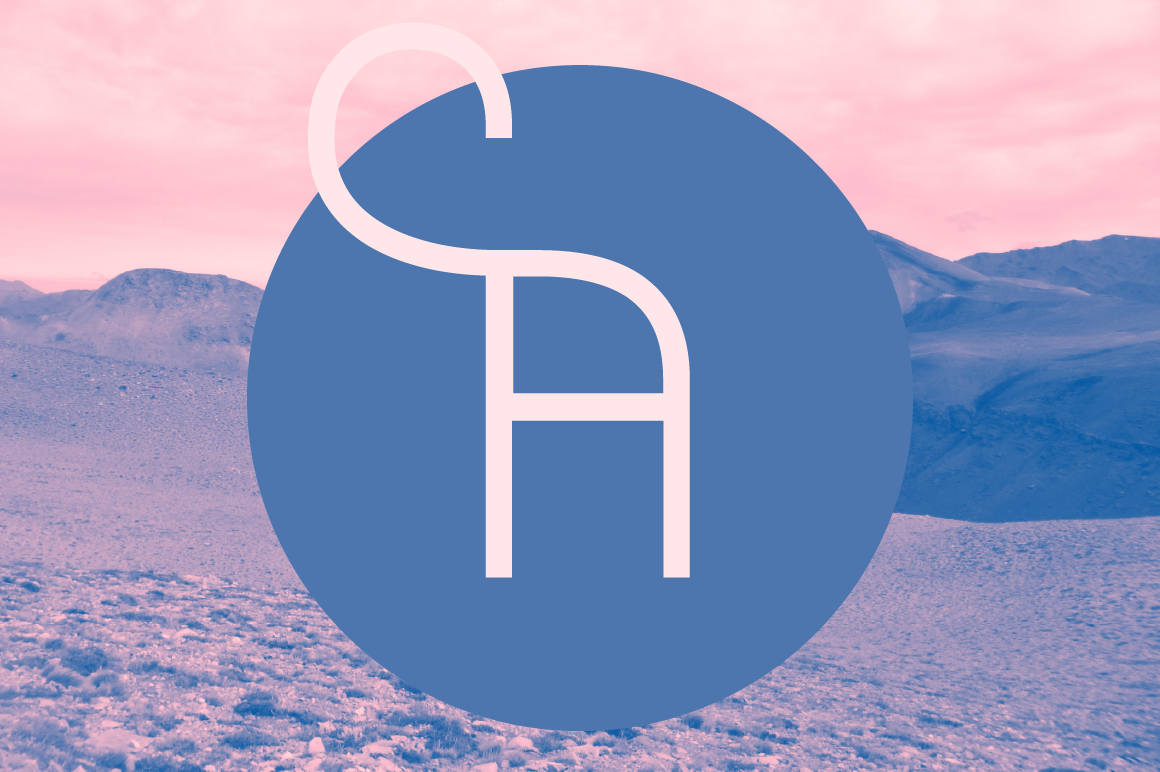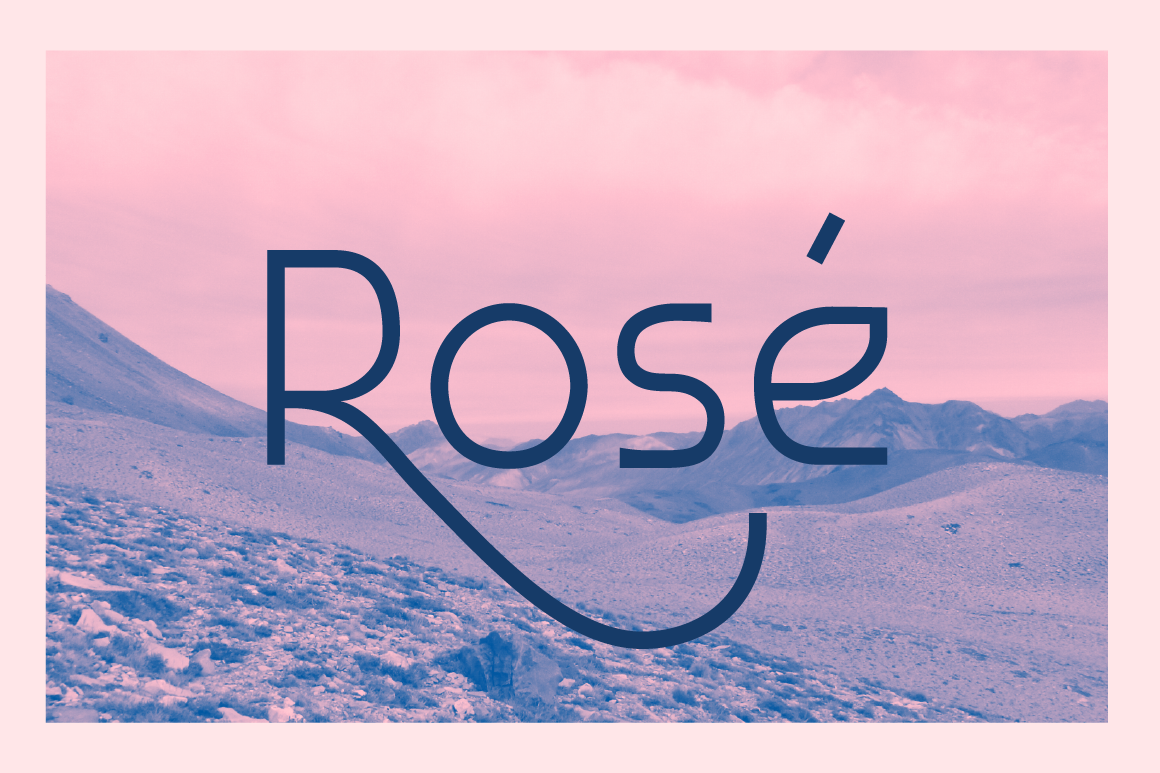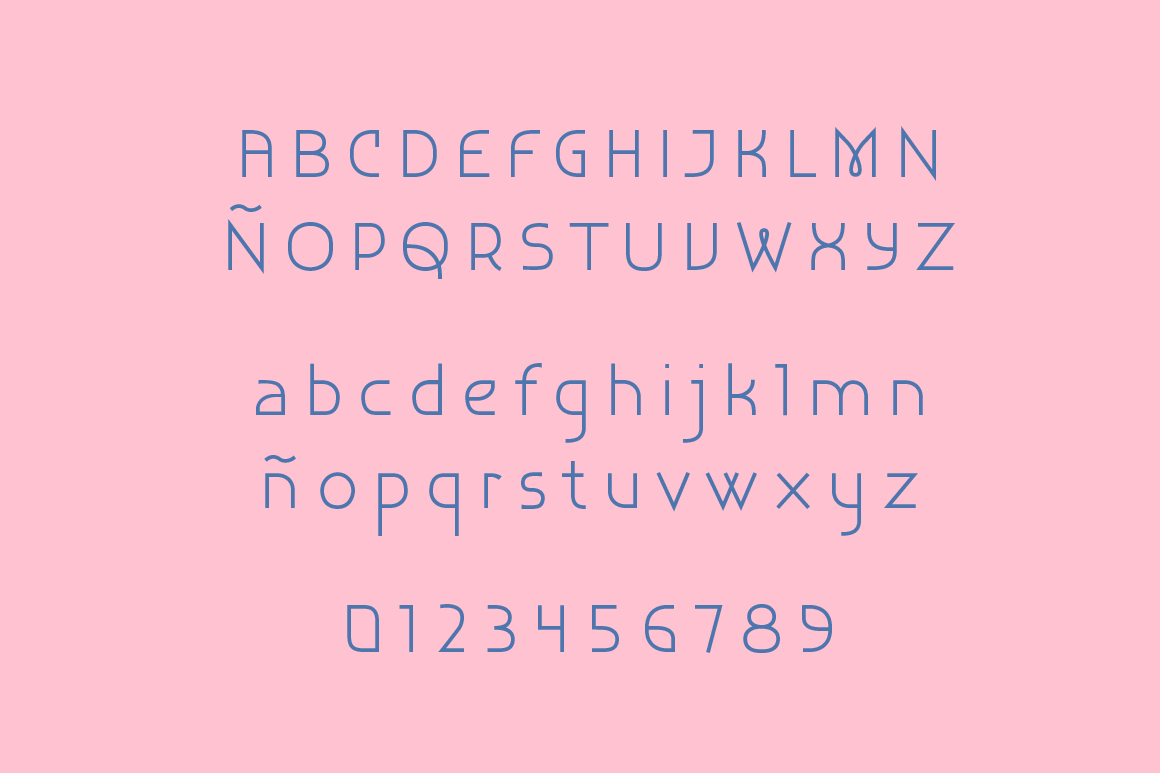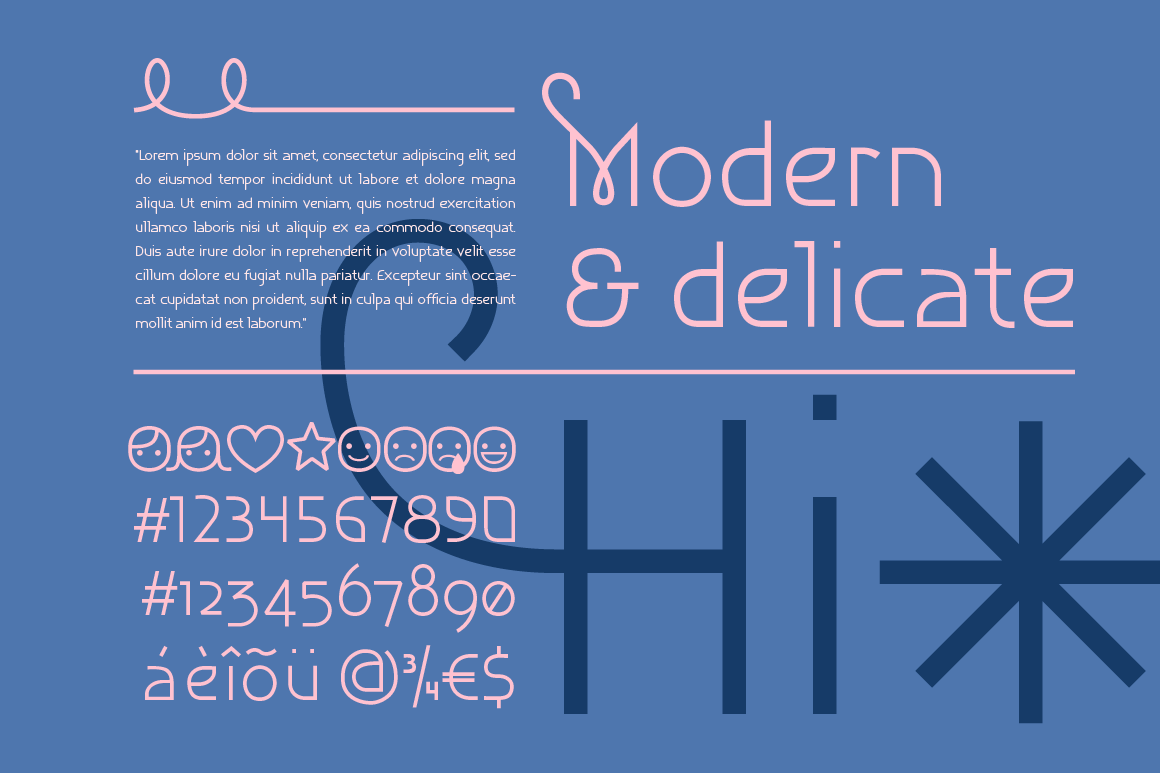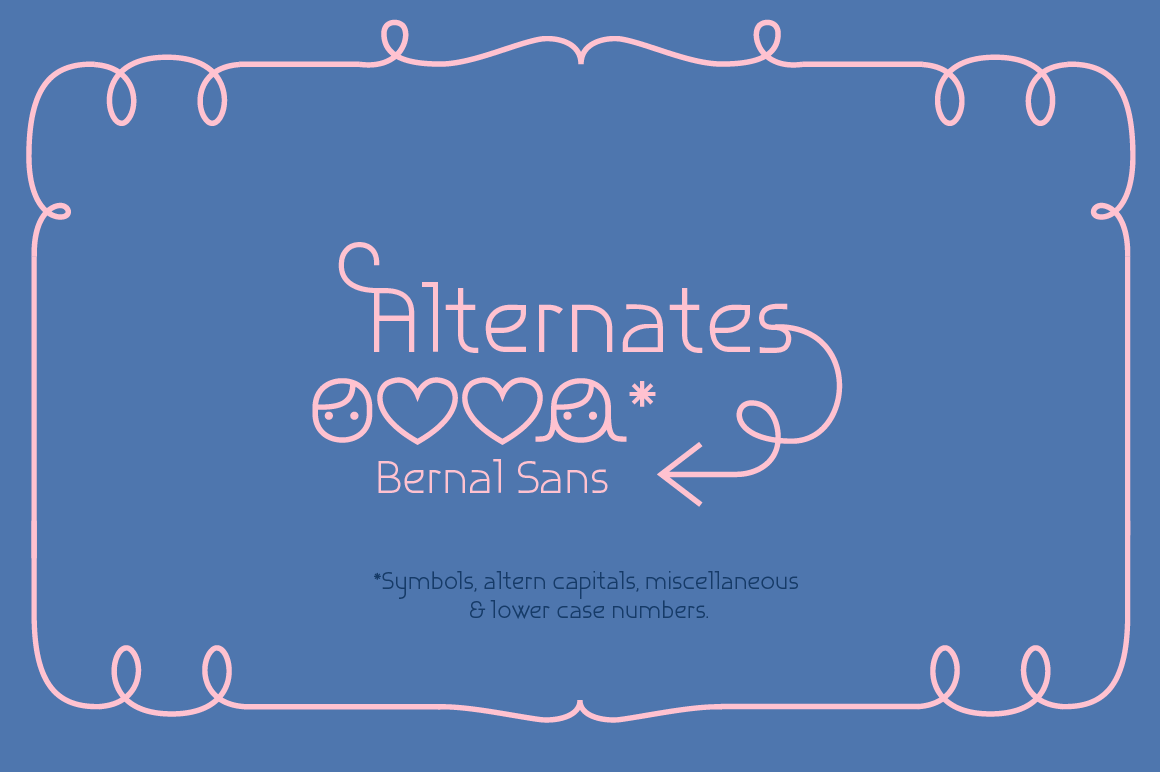
The Perfect Touch of Whimsy: Bernal Sans Font
There’s something magical about stumbling upon a font that perfectly captures the essence of your creative vision. For designers, it’s that elusive “aha” moment when all the pieces fall into place. Perhaps it’s the gentle curve of a letterform, or the way a font seems to whisper your message to the world. For us, that moment came when we discovered the Bernal Sans Font – a display modern sans-serif font that exudes a delicate and romantic touch.
With its clean and minimal design, Bernal Sans Font is the perfect addition to any project that needs a touch of charm. Whether you’re designing a wedding invitation, a boutique logo, or a travel brochure, this font is sure to add a dash of personality to your work. As a designer, you’ll appreciate the versatility and sophistication that Bernal Sans Font brings to the table – making it an invaluable tool in your creative arsenal.
Bernal Sans Font Key Features
- Unique Characteristics: Bernal Sans Font features a modern, sans-serif design with a distinctive rounded edge and a friendly, approachable feel, making it ideal for body text and display typography.
- Font Weight and Style: Bernal Sans Font is available in six weights (Light, Regular, Medium, Bold, Extra Bold, and Black) and three styles (Regular, Italic, and Oblique), offering a range of options for customization and emphasis.
- Optical Kerning and Hinting: The font features advanced optical kerning and hinting, ensuring smooth and precise rendering at various font sizes and resolutions, even on low-resolution devices.
Bernal Sans Font Review
As a designer, I was excited to try out Bernal Sans Font and see if it would make it to my go-to font list. ✨ Here are my thoughts on its strengths and weaknesses.
- ✨ Clean and modern design: Bernal Sans has a sleek and contemporary feel that makes it perfect for modern branding and web design projects.
- ✨ Highly legible: The font is well-designed for reading and works well in a variety of sizes and resolutions.
- ⚠️ Limited language support: Bernal Sans is primarily designed for Latin-based languages, which may limit its usability for projects requiring support for other languages.
- ⚠️ Not ideal for complex layouts: The font’s clean design can sometimes make it difficult to create complex layouts or achieve fine-tuned typography.
Overall, Bernal Sans is a solid font that works well for modern and clean design projects. While it has some limitations, it’s still a great addition to any designer’s toolkit. If you’re looking for a versatile and stylish font, Bernal Sans is definitely worth considering.
Getting the Most Out of Bernal Sans
For optimal results, pair Bernal Sans with a clean and minimalist design aesthetic. Use it for titles, headings, and body text to create a cohesive and modern look. Experiment with different font sizes and styles to create visual hierarchy and emphasis.
Bernal Sans is ideal for digital and print projects that require a modern and clean look. Use it for:
– Branding and identity projects
– Digital marketing materials (e.g., social media, email campaigns)
– Print materials (e.g., business cards, brochures)
– Web design projects (e.g., landing pages, websites)